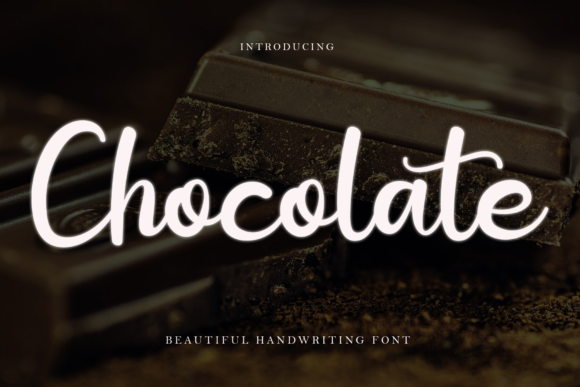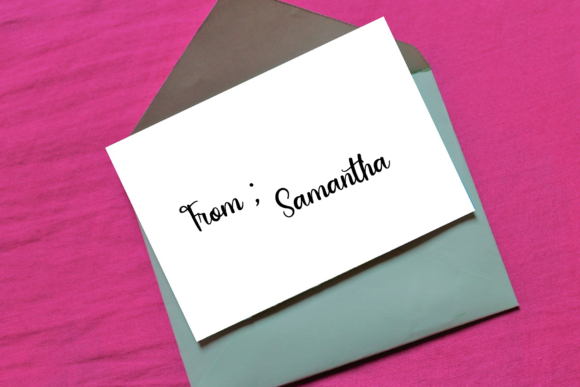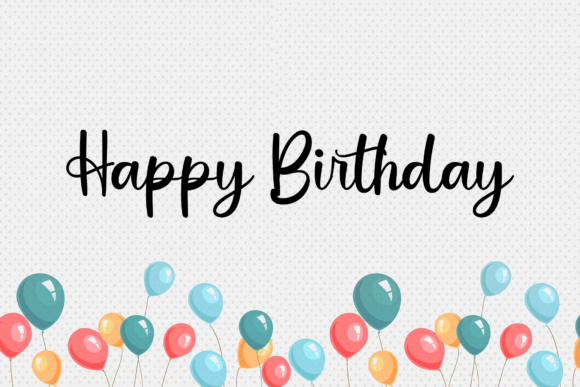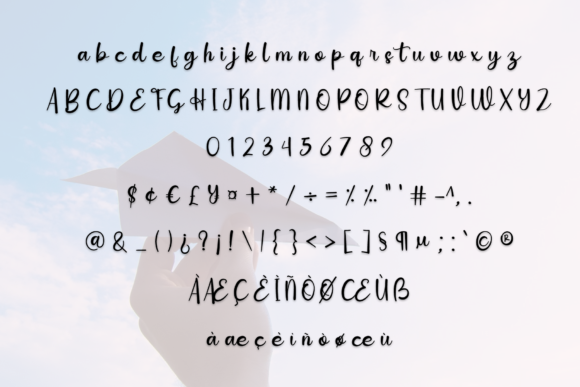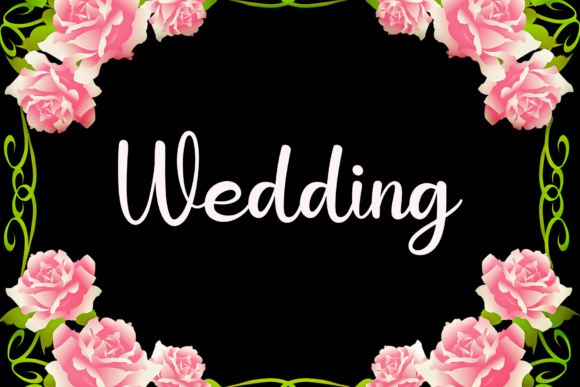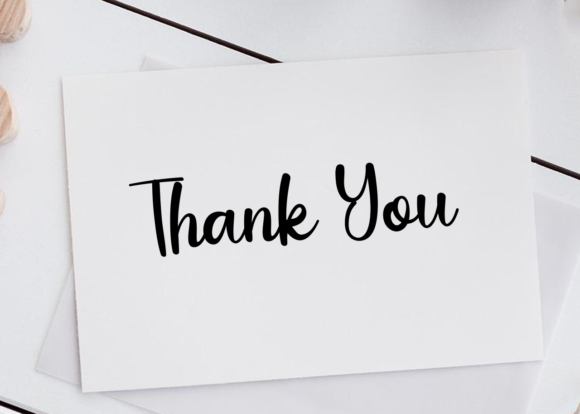
Chocolate Font
About Chocolate Font
**Chocolate Font: Unique Round-Lettered Handwritten Charm**
Introducing *Chocolate Font*, a unique and round-lettered handwritten typeface that has been carefully crafted to deliver the desired results. This font offers versatility, making it suitable for writing titles, invitations, letters, and various other types of products. With its distinctive charm, *Chocolate* adds a playful and eye-catching element to your designs.
The uniqueness of *Chocolate* lies in its round-lettered handwriting style, providing a distinct and memorable appearance. Each letter is meticulously designed, contributing to a visual experience that stands out and captures attention. This font is crafted to bring a touch of charm to your projects, making it an excellent choice for various creative applications.
Whether you’re creating titles that need a hint of whimsy, crafting invitations with a joyful flair, or adding character to letters and various products, *Chocolate Font* seamlessly adapts to different design needs. Its versatile nature allows it to become a valuable asset in your creative toolkit.
As you incorporate *Chocolate* into your projects, you’ll appreciate how it brings a unique and memorable touch to your text. The round-lettered handwritten charm becomes a defining feature, turning ordinary words into visually appealing and engaging elements.
In summary, *Chocolate Font* is more than just a typeface; it’s a celebration of unique round-lettered handwritten charm. Let it be the choice that adds a playful and distinctive element to your titles, invitations, letters, and a variety of creative products, making each project a delightful and memorable experience.